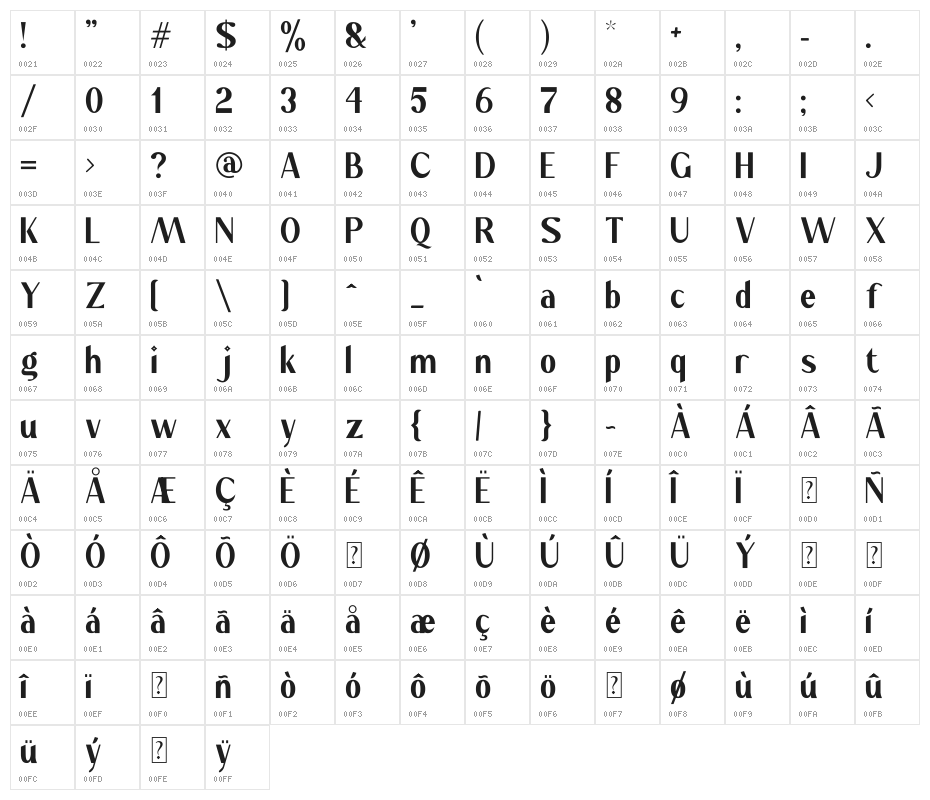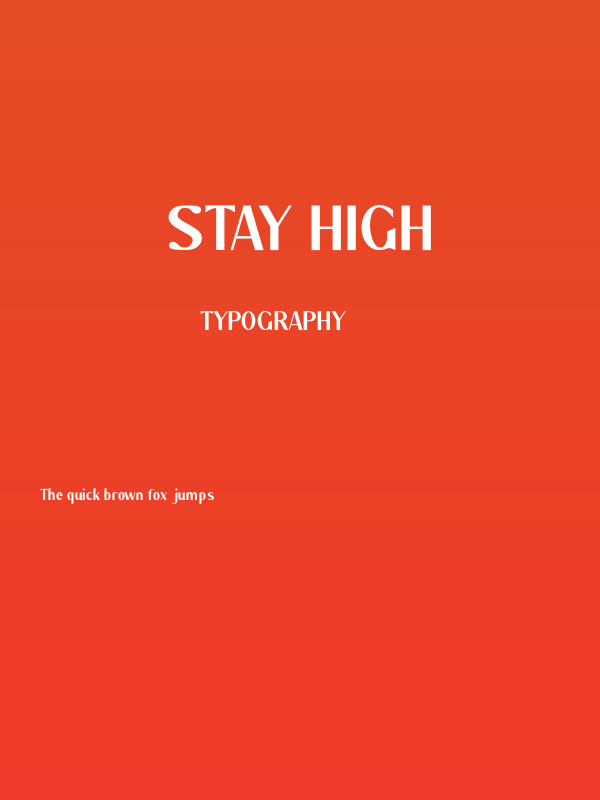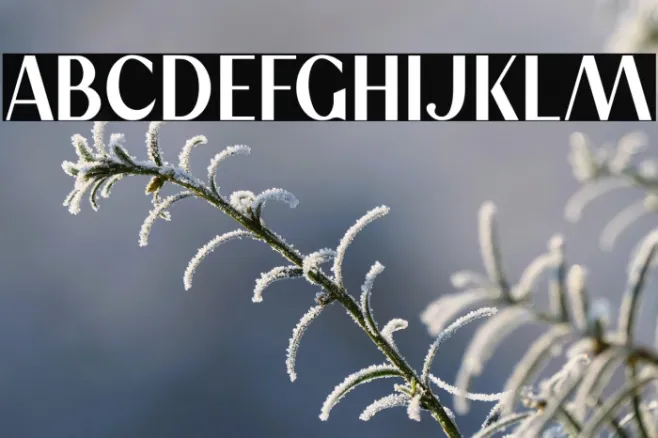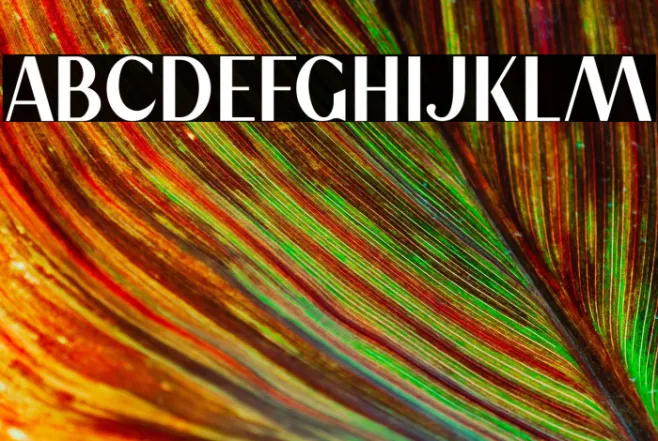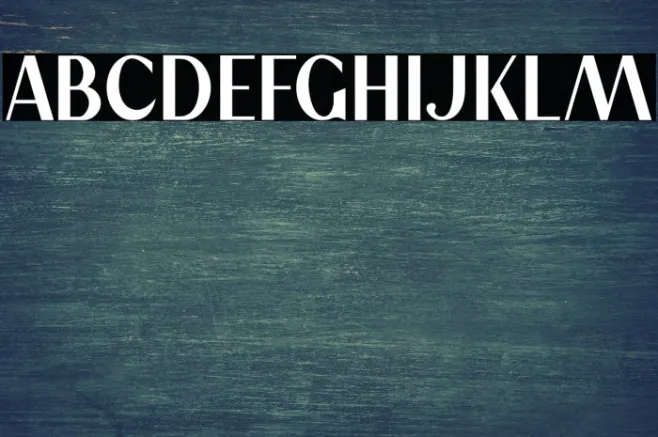
Stay High Font
Stay High Description
This font features a bold and dynamic style with a strong presence. The uppercase letters are tall and slightly condensed, giving a modern and assertive look. The lowercase letters maintain a consistent weight, with some unique characteristics such as the curved tail on the 'g' and the distinctive shape of the 'a'. The numerals are clear and bold, ensuring readability. Special characters are well-defined, adding to the font's versatility. Overall, this typeface combines elegance with a contemporary flair, making it suitable for a variety of design applications.
| Proposed Projects | Ideal for branding, headlines, posters, and editorial design. |